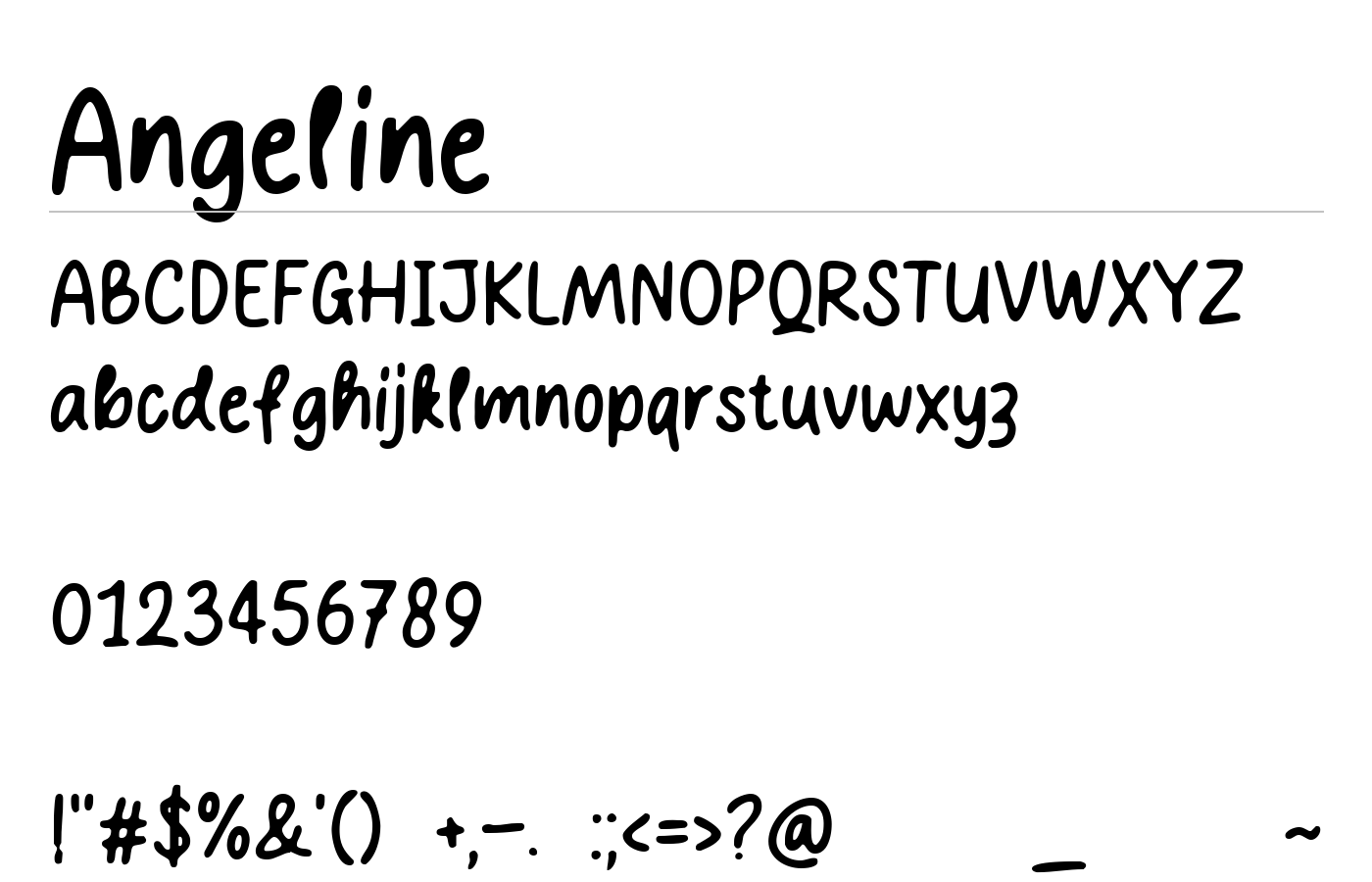
Angeline is a casual, handwritten sans serif font with a playful and friendly character. It features smooth, rounded strokes with a medium weight and slightly condensed width, making it approachable and easy to read. This font is ideal for informal branding, children's products, and creative projects that want to convey warmth and personality.
Angeline Font
About Angeline Font